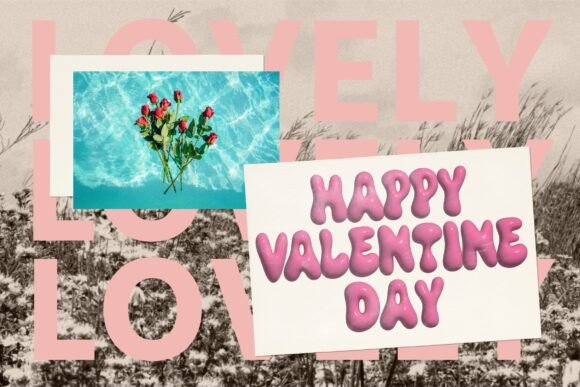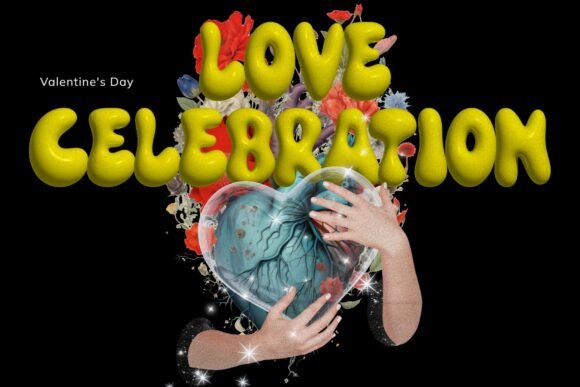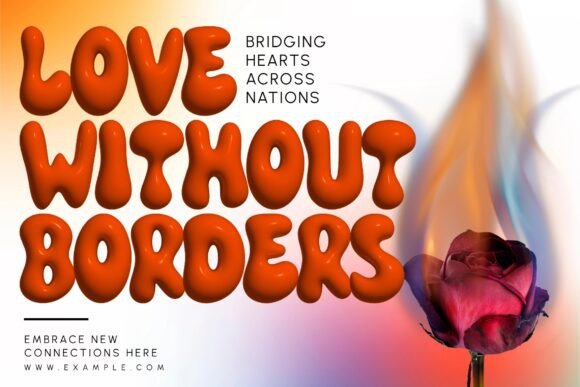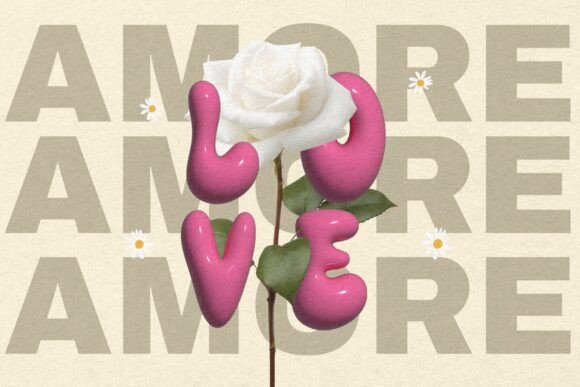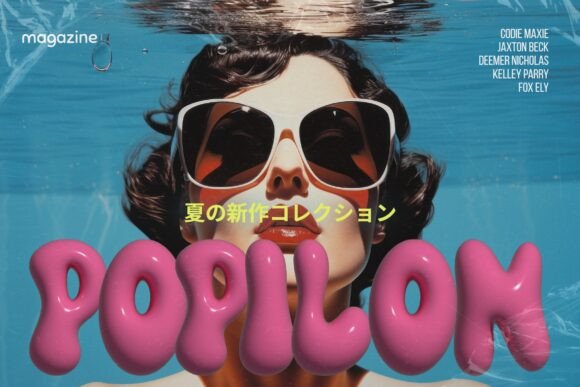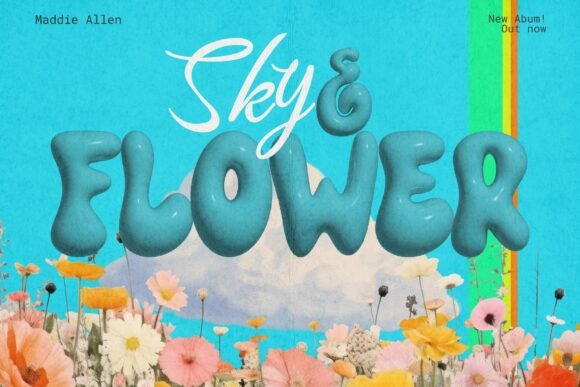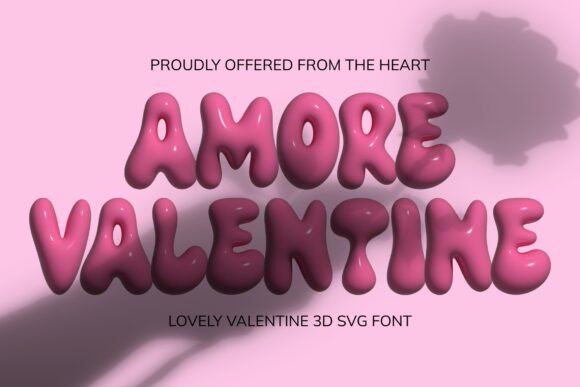
Set the Mood for Love and Creativity with Amore Valentine 3D SVG Font
Ah, Valentine’s Day is just around the corner, and I’m sure many of you are scrambling to create romantic designs, cards, and invitations that will make your loved ones swoon. I know I have been! As a designer, I’ve had my fair share of struggles when it comes to finding the perfect font for my projects. One particular project that comes to mind is when I was working on a Valentine’s Day card for a client. I wanted to create something that would capture the playful and charming essence of the holiday, but I just couldn’t find the right font. That was until I stumbled upon the Amore Valentine 3D SVG font!
A Game-Changing Font for Your Designs
The Amore Valentine 3D SVG font is an eye-catching, glossy bubble font that’s perfect for Valentine’s Day projects, romantic cards, invitations, branding, or any design that needs a playful and charming touch. Its vibrant 3D style adds depth and personality to your work, ensuring your designs stand out from the crowd.
• ✨ Unique and eye-catching design: The 3D effect and glossy finish make this font truly stand out.
• ✅ Easy to read: Despite its playful design, the font remains clear and easy to read, even in smaller sizes.
• ✅ Versatile: Perfect for a wide range of design projects, from romantic cards to branding and advertising.
• ✅ High-quality: The font is well-crafted and professionally designed, making it perfect for commercial use.
• ⚠️ May not be suitable for formal designs: The playful and whimsical nature of the font may not be suitable for more formal designs or projects that require a professional tone.
• ⚠️ Some characters may require manual adjustment: Depending on the design, some characters may require manual adjustment to ensure proper spacing and alignment.
The Designer Inspiration Behind Amore Valentine 3D SVG Font
The Amore Valentine 3D SVG font was designed with love and care by a team of creatives who wanted to capture the playful and charming essence of Valentine’s Day. Inspired by the joy and romance of the holiday, they crafted a font that’s both fun and elegant. Whether you’re a designer, marketer, or DIY enthusiast, this font is sure to bring your ideas to life in the sweetest way possible!